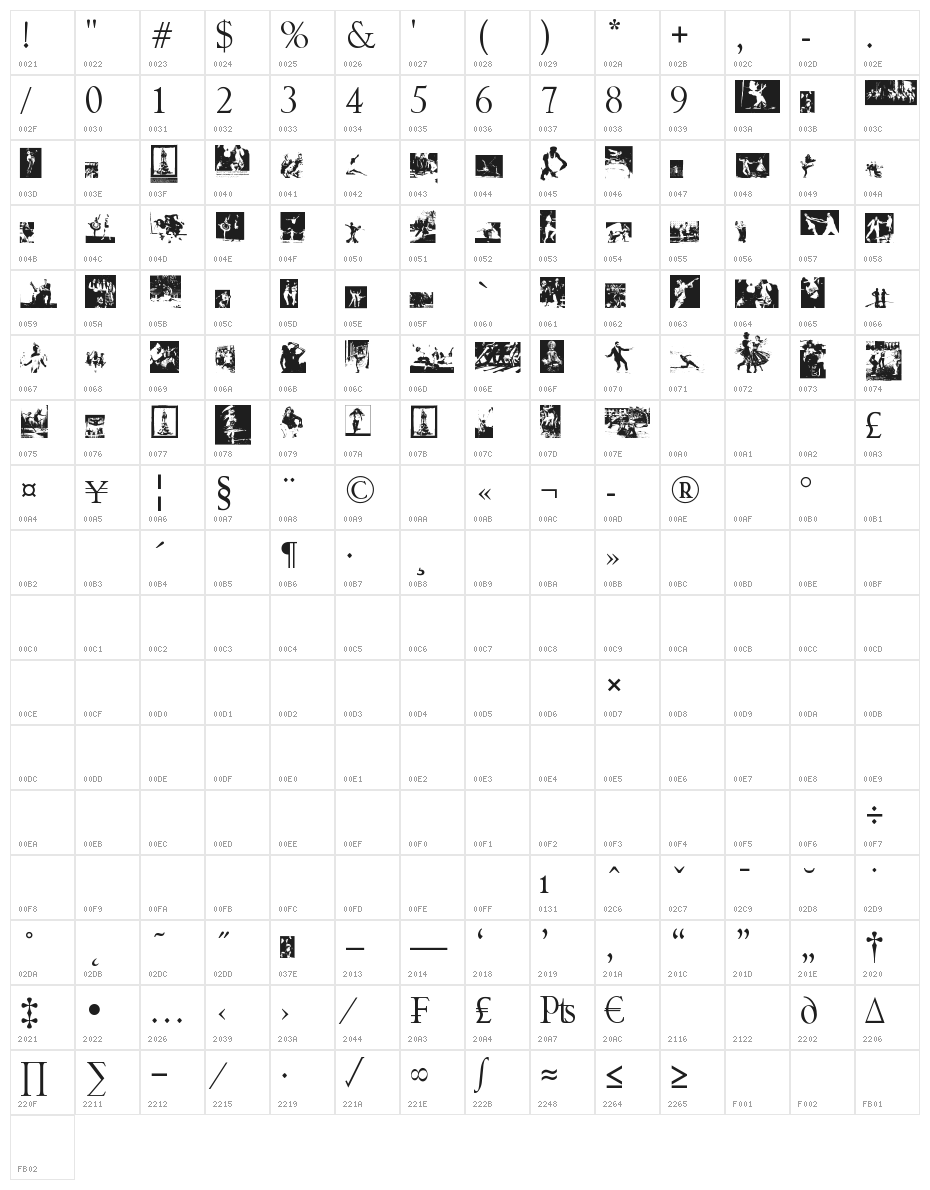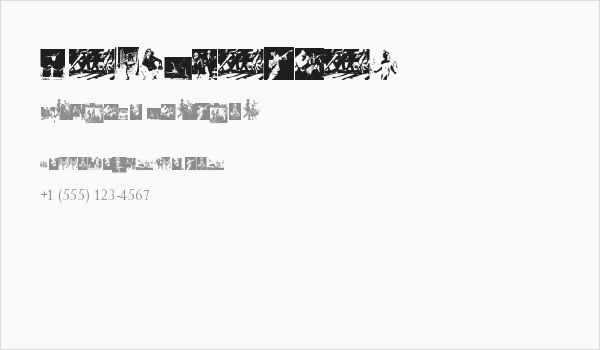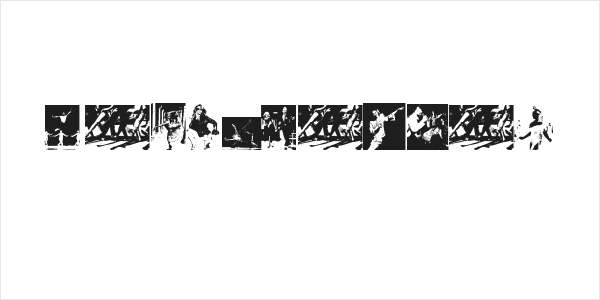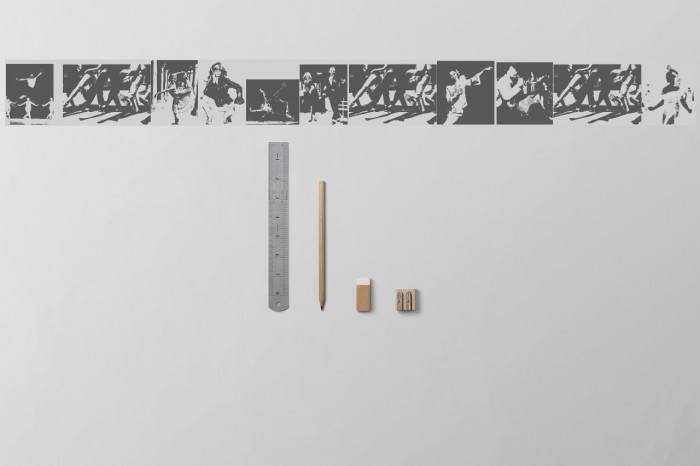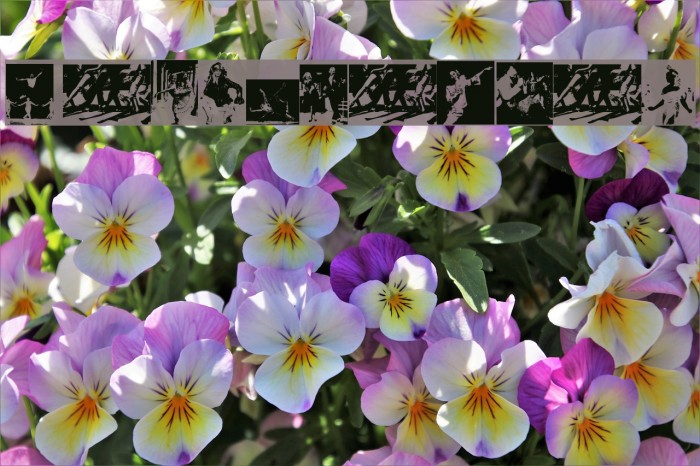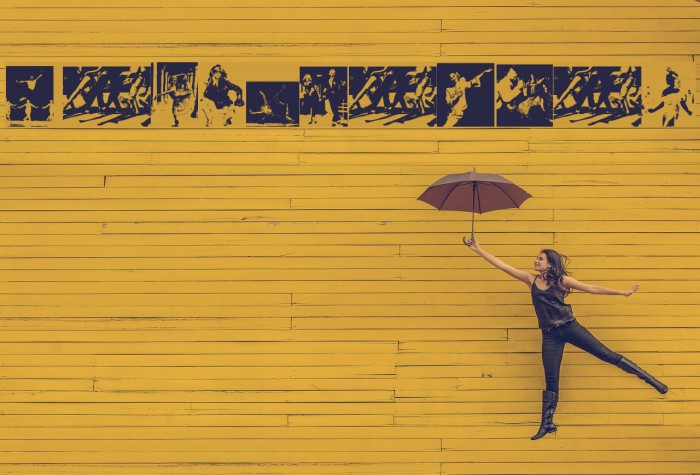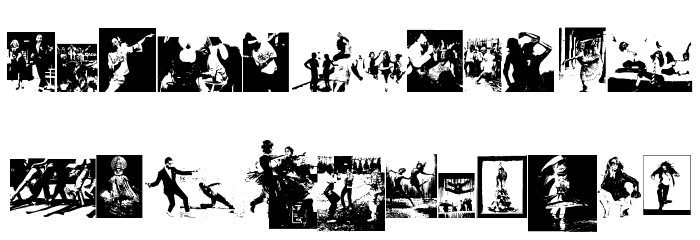
OnlyDancing Font
OnlyDancing Description
This font is a unique blend of expressive dance imagery and traditional serif characters. Each letter is creatively integrated with dynamic silhouettes of dancers, capturing movement and energy. The numbers and special characters maintain a classic serif style, providing a striking contrast to the artistic letterforms. This font is perfect for projects that aim to convey motion, creativity, and artistic flair. Its distinctive design makes it ideal for eye-catching headlines and logos, where the visual impact is paramount.
| Overall Style | Artistic |
| Proposed Projects | Ideal for dance studio branding, artistic event posters, and creative magazine covers. |